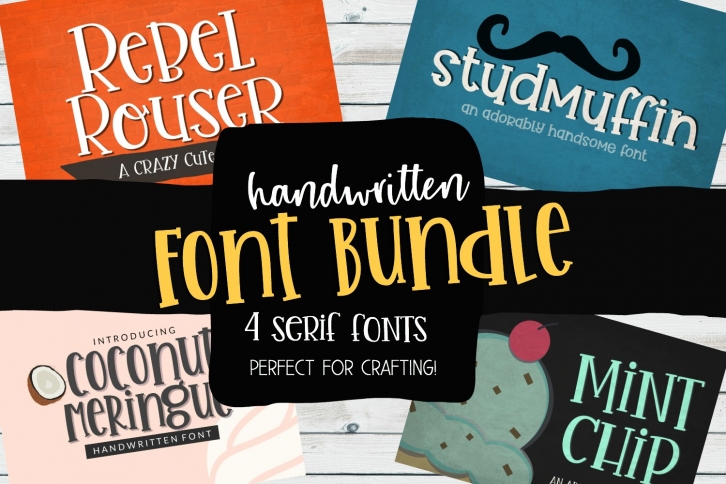
Handwritten Bundle is a great font that was designed by Sabrina Schleiger Design - SVG Bliss. Imagine the amount of combinations you can create using this font! The archive is 16.79 MB and it was released on September 25, 2019. Handwritten Bundle looks beautiful on wedding invitations, greeting cards, logos, posters, labels, t-shirt designs, logos, business cards and is perfect for use in ink or watercolor works, fashion, magazines, packaging and food menus, children's books and more!